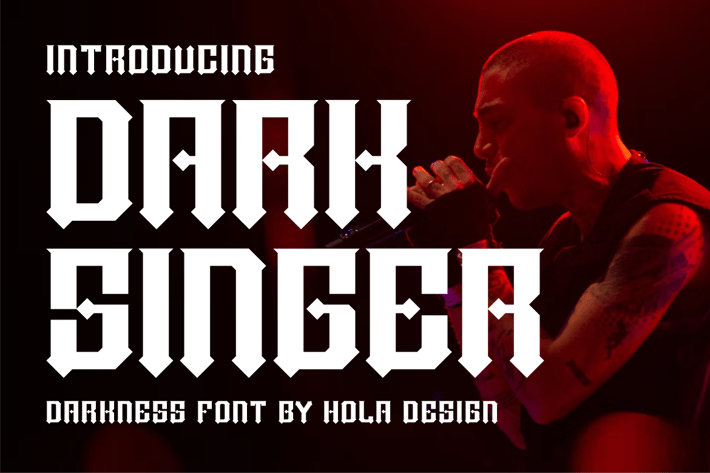
Dark Singer Font
Dark Singer Font Font is unique . Ready to use for your design like labeling, movie sceen, poster, movie title, gigs, album covers, logos, and much more.